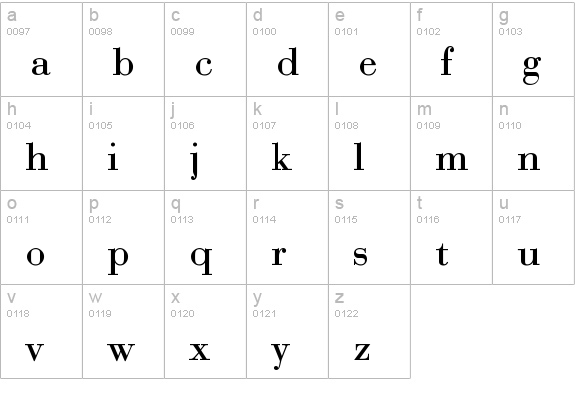
QTBodini Regular Font Details
QTBodini Regular is the standard, neutral variant in the QTBodini typeface family \xE2\x80\x94 well suited to general body text, paragraphs, and standard typographic work.
QTBodini Regular font is a stunning typeface that effortlessly combines elegance with a touch of playfulness. Its clean and crisp design makes it perfect for a wide range of projects, from branding to editorial designs, packaging, advertising, and more. This font features a well-balanced mix of rounded and geometric elements, giving it a unique and modern appearance. Its smooth curves and sharp edges create a harmonious visual harmony that is both eye-catching and easy to read. With its generous x-height and open letterforms, QTBodini Regular font ensures excellent legibility even at smaller sizes. This makes it an ideal choice for body text, paragraphs, and captions, allowing your message to be conveyed with clarity and style. One of the best things about QTBodini Regular font is that it is freely available to download at FontsMarket.com. This means that you can enjoy the benefits of this exceptional typeface without having to worry about any additional costs. Whether you are a professional designer or a hobbyist, this font offers you the freedom to create stunning designs without any limitations. So, if you are in search of a versatile and visually appealing font that can elevate your designs to new heights, look no further than QTBodini Regular font. Its contemporary yet timeless aesthetic, combined with its availability as a free download, makes it a must-have addition to your font collection.